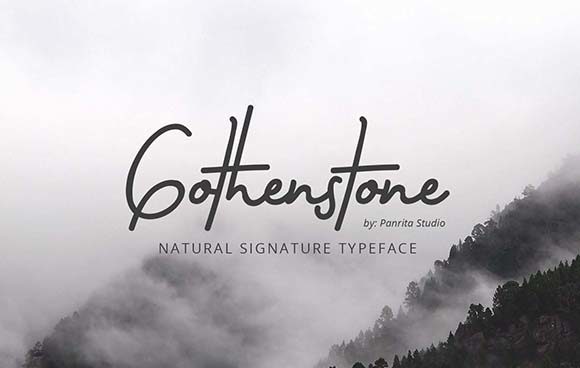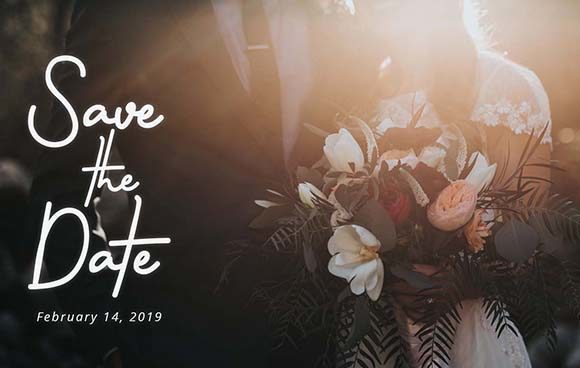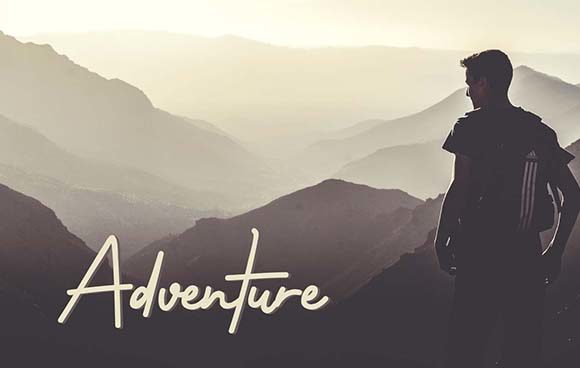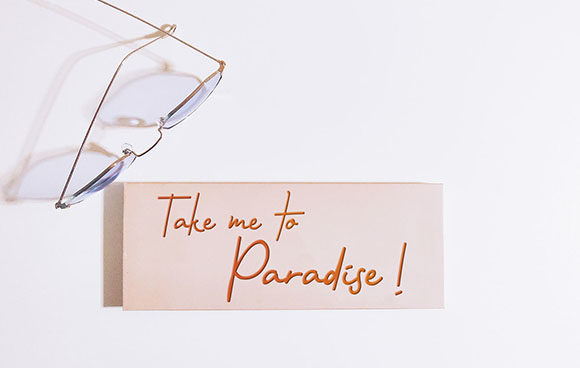
Gothenstone Font
About Gothenstone Font
The Gothenstone is an amazing signature font. It has a natural look and will add a personal touch to your design.
It’s suitable for signature logos, wedding invitations, birthday invitations, greeting cards, quotes, headlines, magazines, clothing, posters, stationary and much more!